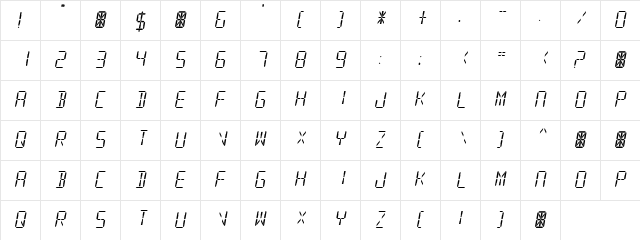
Digital Readout Regular
Design Context for Digital Readout Typeface
Digital Readout has a distinctly futuristic character, with geometric precision and clean angles that feel at home in technology, gaming, and sci-fi contexts.
Pro Tip: Try Digital Readout with generous letter-spacing in UI labels and navigation — the geometric forms benefit from room to breathe.